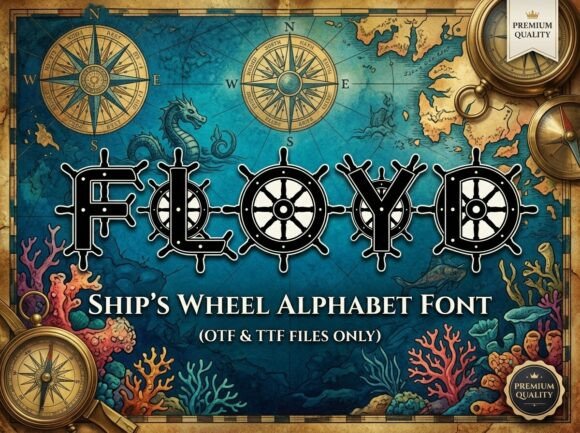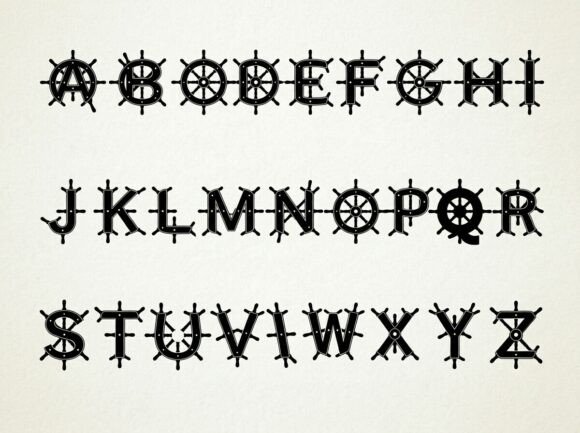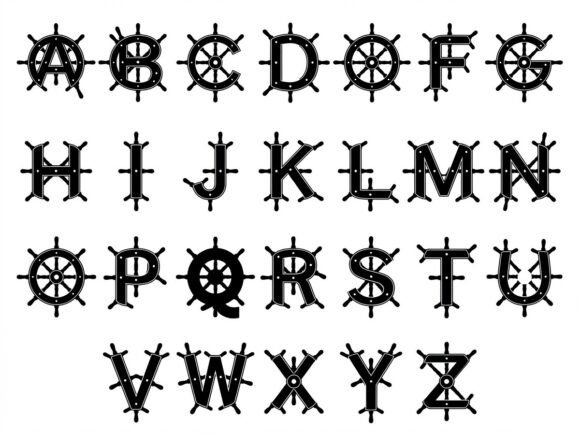
Set Sail on a Creative Adventure with Floyo: A Unique Nautical Character Font
I’ll never forget the design project that led me to discover Floyo, a game-changing nautical character font. I was working on a branding project for a seaside restaurant, and I was struggling to find the perfect font that would capture the essence of the ocean. My client wanted something that would transport their customers to the coast, but I was stuck in a sea of generic fonts. That’s when I stumbled upon Floyo, and it was love at first sight! ✨
What Makes Floyo Special?
Floyo is more than just a font – it’s an experience. This whimsical display typeface artfully transforms traditional letterforms into maritime artifacts, featuring iconic ship steering wheels integrated into every character. Its bold, chunky silhouette and rhythmic maritime motifs make it an extraordinary choice for seaside restaurant branding, yacht club logos, beach resort signage, and adventurous travel blogs.
An Honest Review of Floyo
- ✨ Unique and eye-catching design that will make your project stand out
- ✅ Highly legible, even in bold and chunky styles
- 🌊 Perfect for coastal-themed projects, from restaurant branding to travel blogs
- 🎨 Great for designers who want to add a touch of handcrafted charm to their work
While Floyo is an amazing font, it’s not without its quirks. For example:
- 🤔 Some characters may not work well in small sizes, due to the intricate design
- ⚠️ Limited use of OpenType features, but still plenty of glyphs to explore
The Backstory of Floyo
Floyo was designed by a team of creatives who wanted to capture the essence of the ocean in a font. Inspired by the rhythmic motion of the waves and the intricate details of ship steering wheels, Floyo was born. The design team spent months perfecting the font, ensuring that every character would transport users to the coast.
Q: Is Floyo available in different styles or weights?
A: Currently, Floyo is available in a single style, but the design team is working on expanding the font family with additional weights and styles.